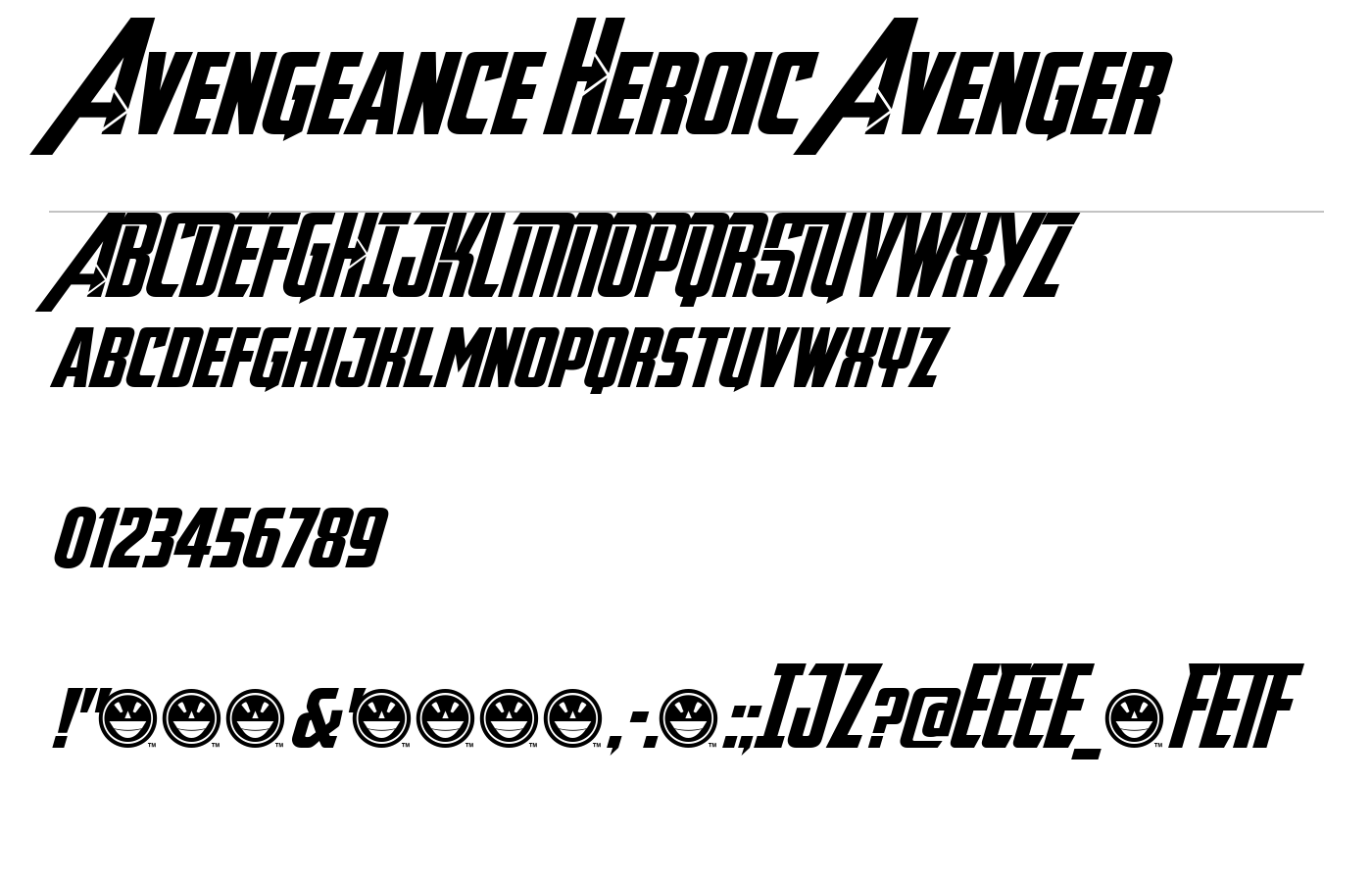
Avengeance Heroic Avenger is a bold, condensed sans serif font with a striking, angular design that instantly conveys energy and strength. Its sharp edges and dynamic forward slant give it a heroic, action-packed feel, making it perfect for branding, posters, and headlines that demand attention and evoke a sense of power and adventure. This font works especially well in entertainment, sports, and comic-themed projects where a dramatic, modern style is needed.
Avengeance Heroic Avenger Font
About Avengeance Heroic Avenger Font